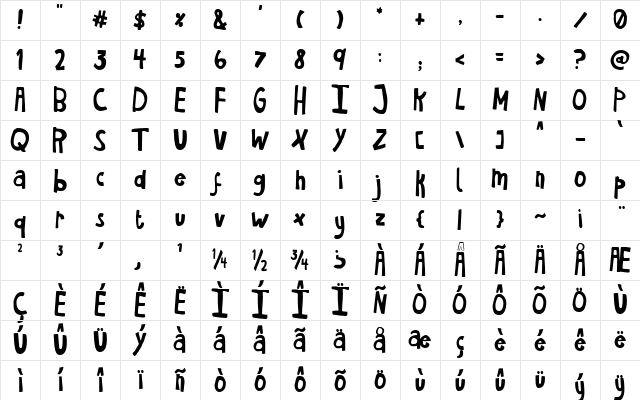
Complete Havent Slept in Two Days Shadow Regular glyph index. Displaying only characters natively supported by Havent Slept in Two Days Shadow Regular font.
Havent Slept in Two Days Shadow is built around its visual character rather than neutral utility - its distinctive forms are designed to make an impression at display sizes.
Font Pairing: Pair with a clean neutral sans-serif for body copy to let Havent Slept in Two Days Shadow's character lead without overwhelming the composition.
Pro Tip: Use Havent Slept in Two Days Shadow exclusively at display sizes - it was designed to be seen, not read at length. Let a neutral companion handle body copy.